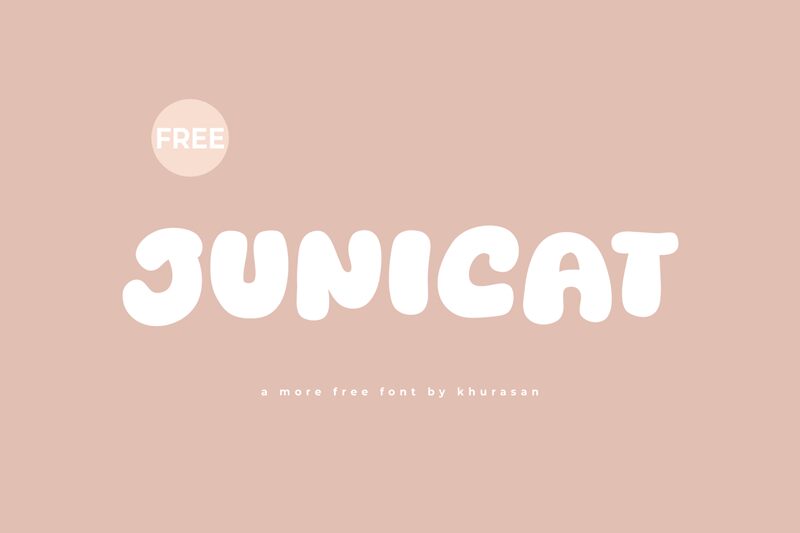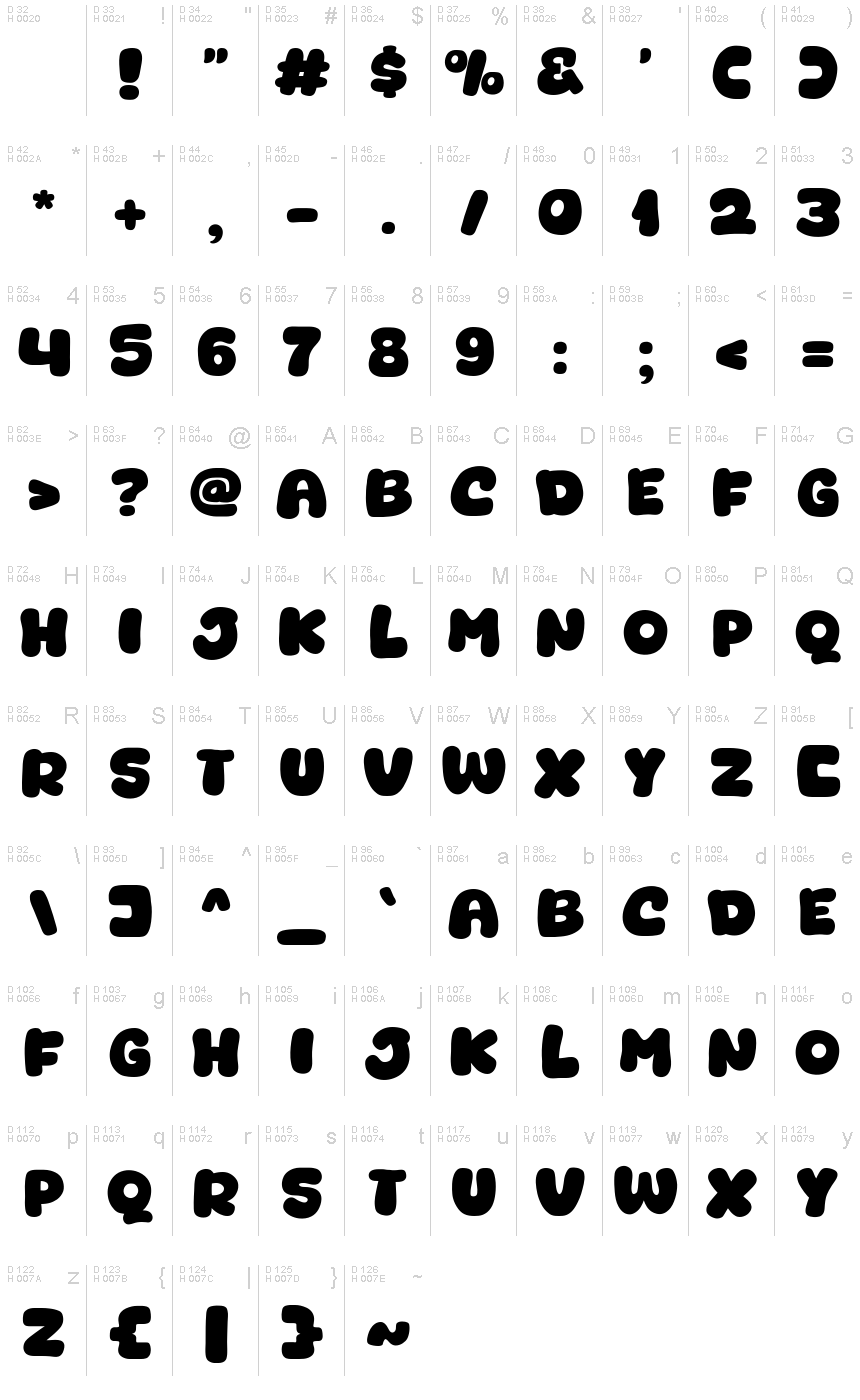
Junicat
Junicat, crafted by Khurasan, embodies a playful and robust character that instantly injects a lively cartoon vibe into any text. Its bold strokes and whimsical form create a delightful visual rhythm that is both friendly and eye-catching. The font's charming irregularities evoke the spontaneity of hand-drawn art, making it perfect for projects that require a touch of warmth and humor.
Ideal for children's books, animated movie titles, and casual branding, Junicat's inviting aesthetic also lends itself well to creative advertising campaigns seeking to stand out with a lighthearted touch. It is this blend of playfulness and strong presence that enables Junicat to convey messages with both personality and impact.